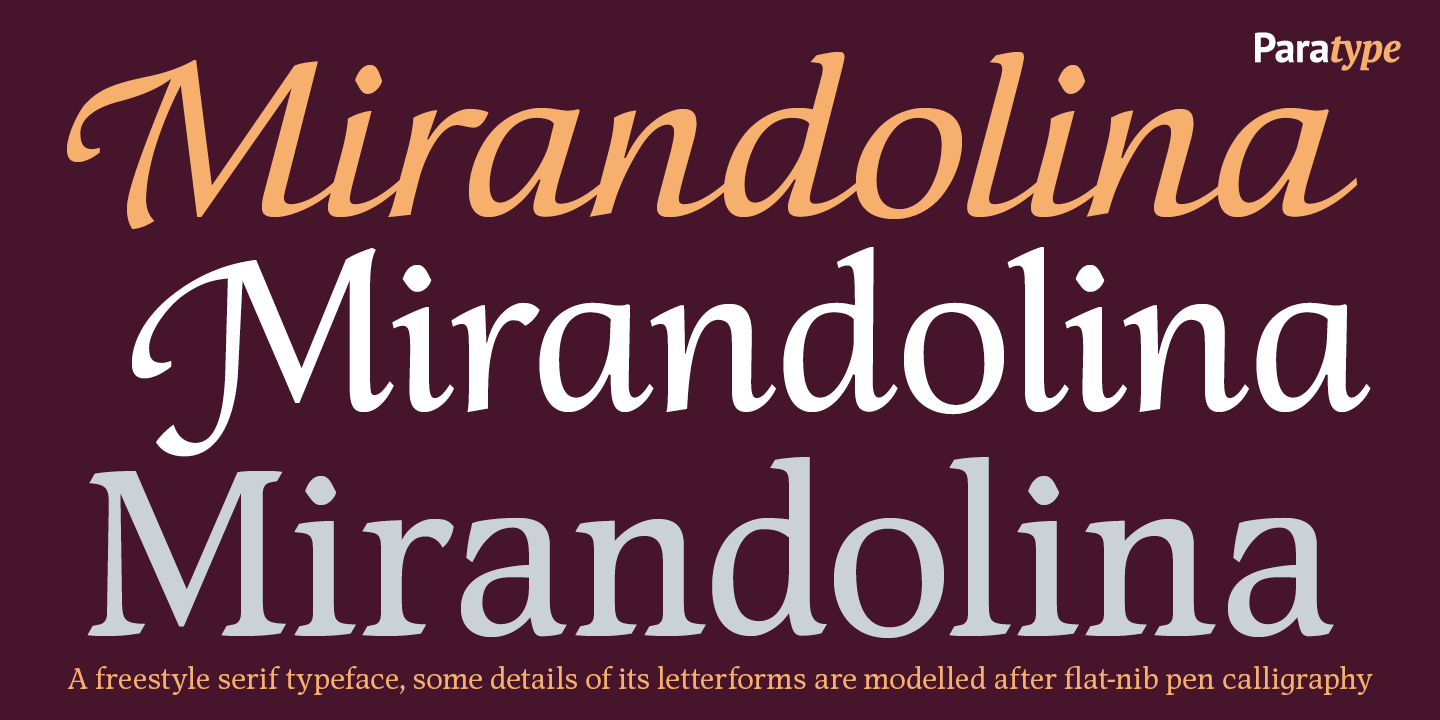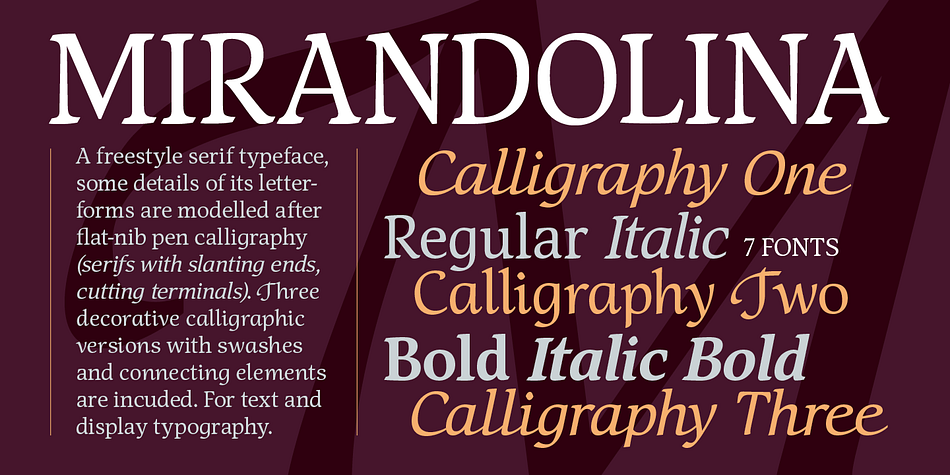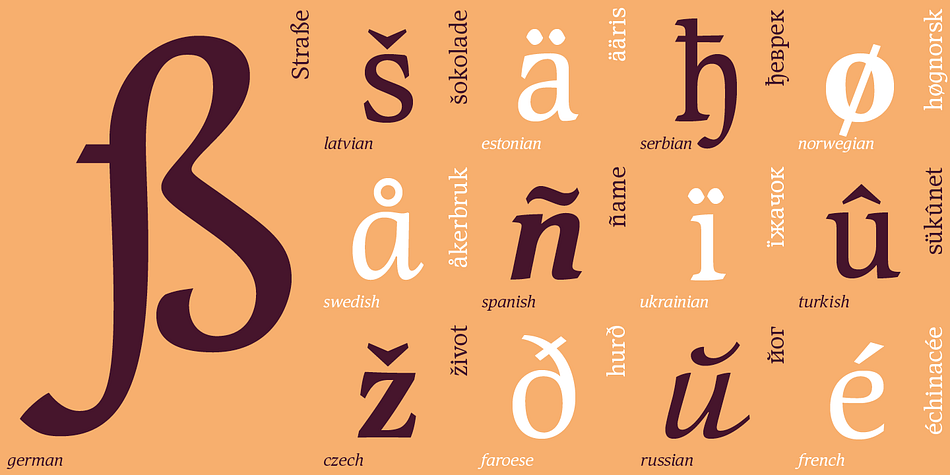
Mirandolina
Designed by Natalia Vasilyeva, Mirandolina is a script and serif font family. This typeface has seven styles and was published by ParaType.
A freestyle serif typeface, some details of its letterforms are modelled after flat-nib pen calligraphy (serifs with slanting ends, cutting terminals). Three decorative calligraphic versions with swashes and connecting elements are incuded. For text and display typography. The face designed by Natalya Vasilyeva and licensed by ParaType in 2007.
Designer Natalia Vasilyeva